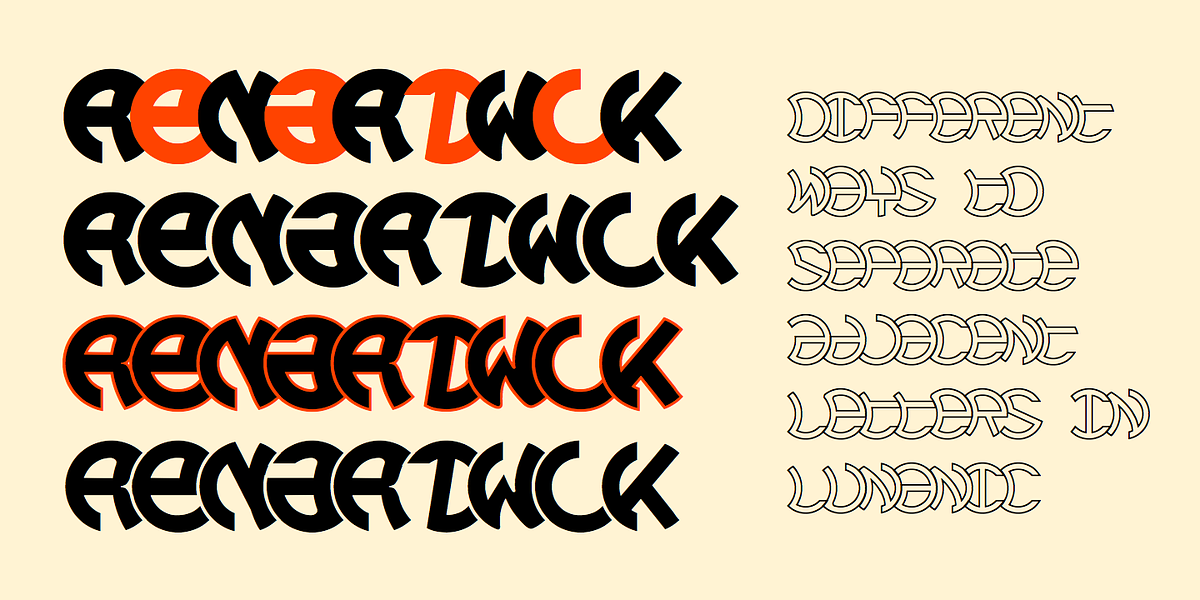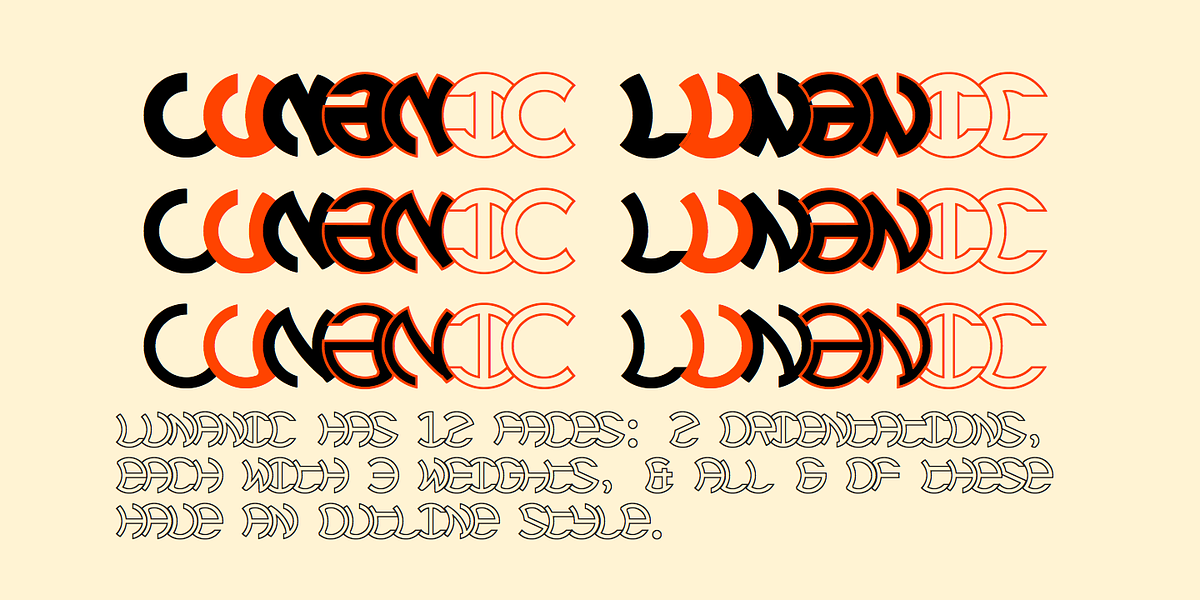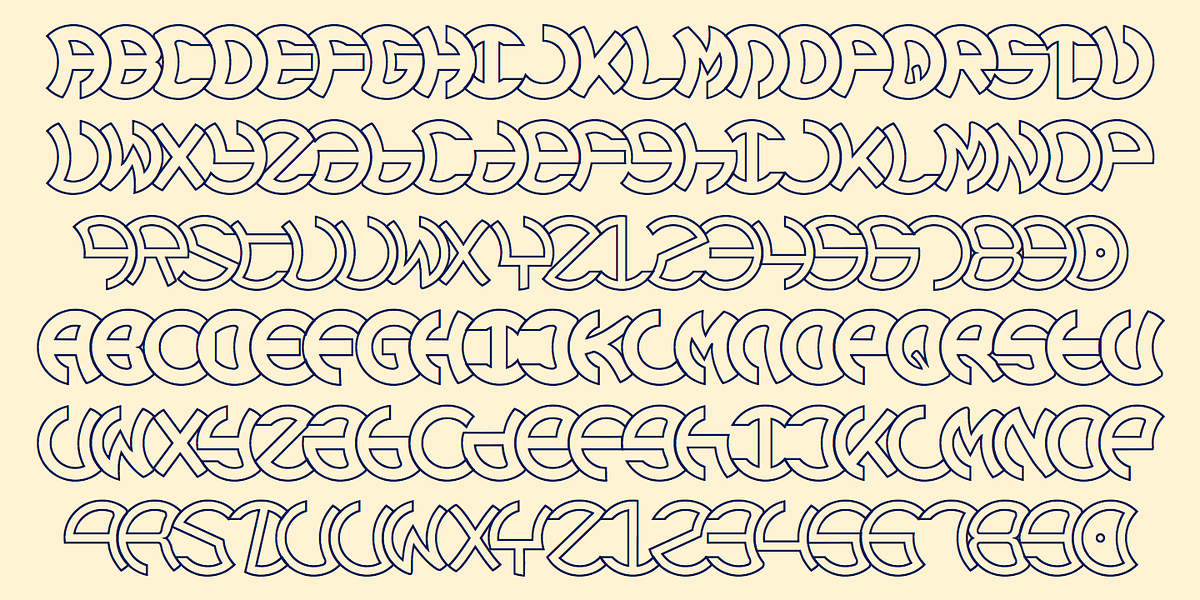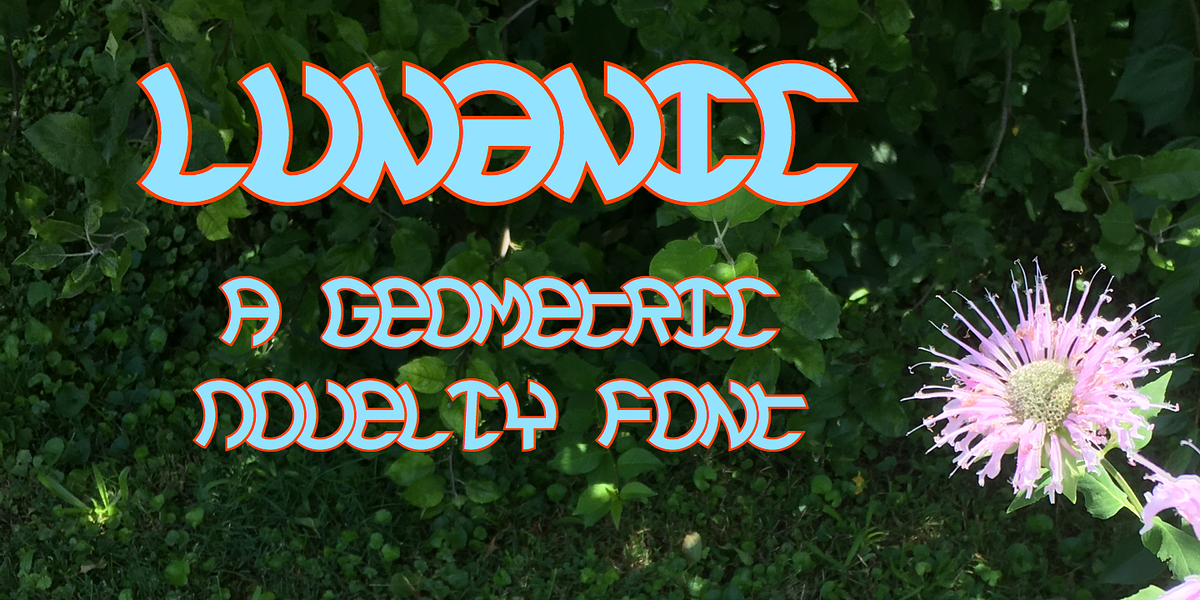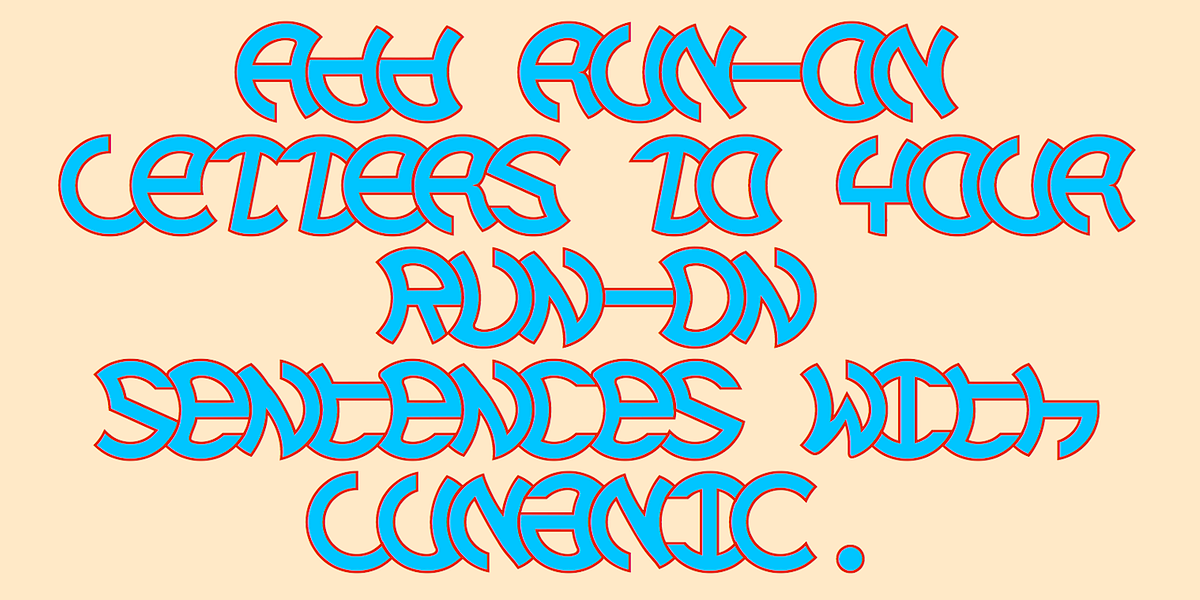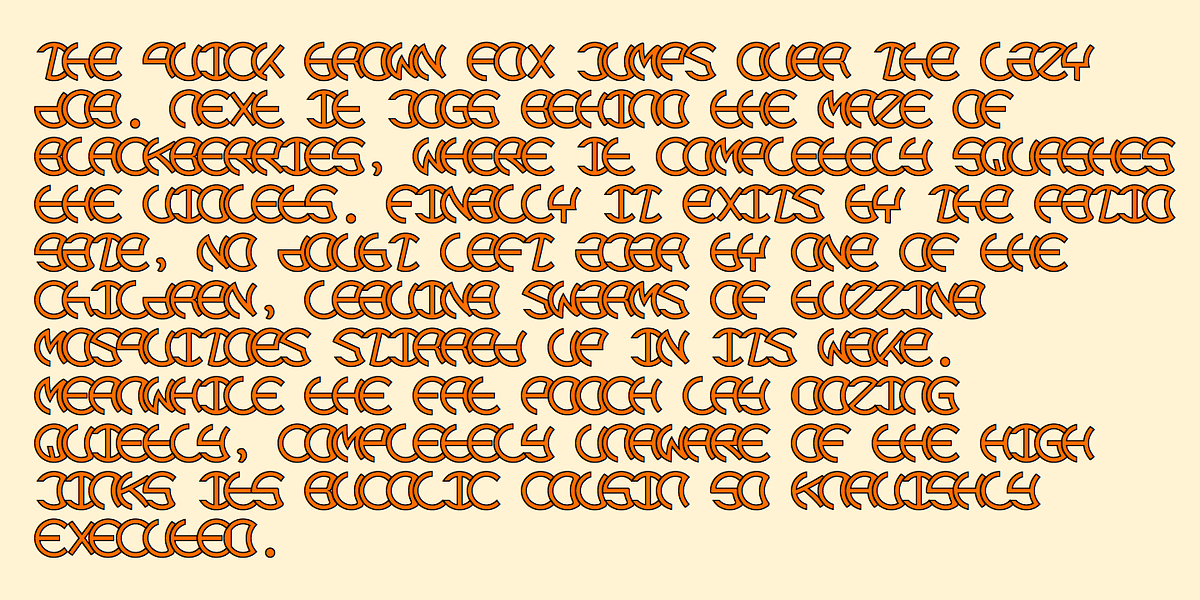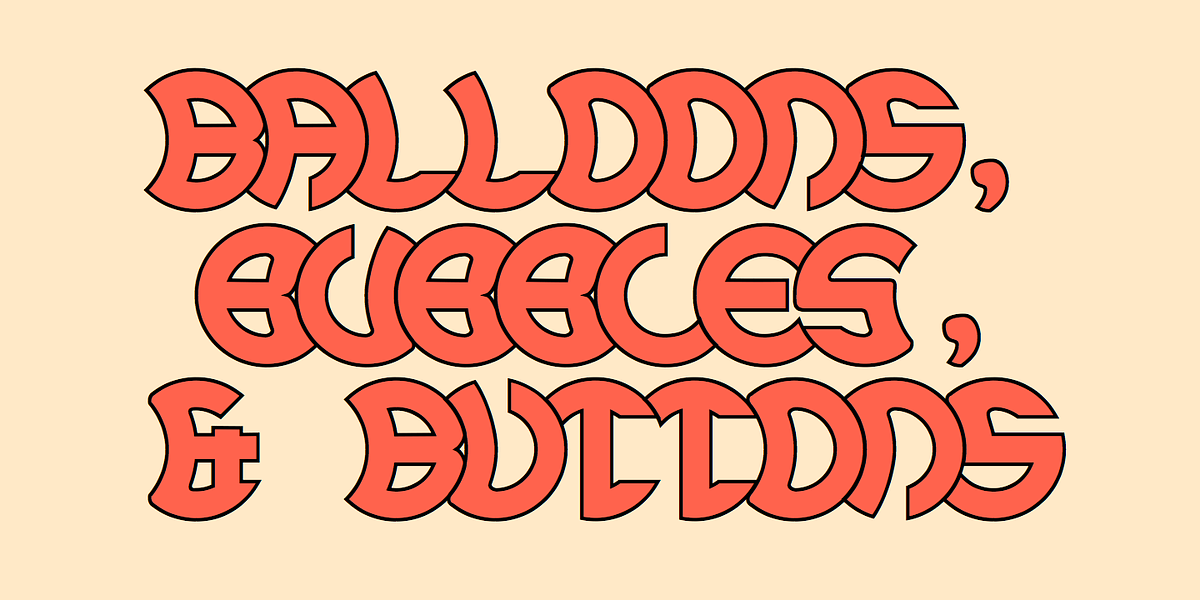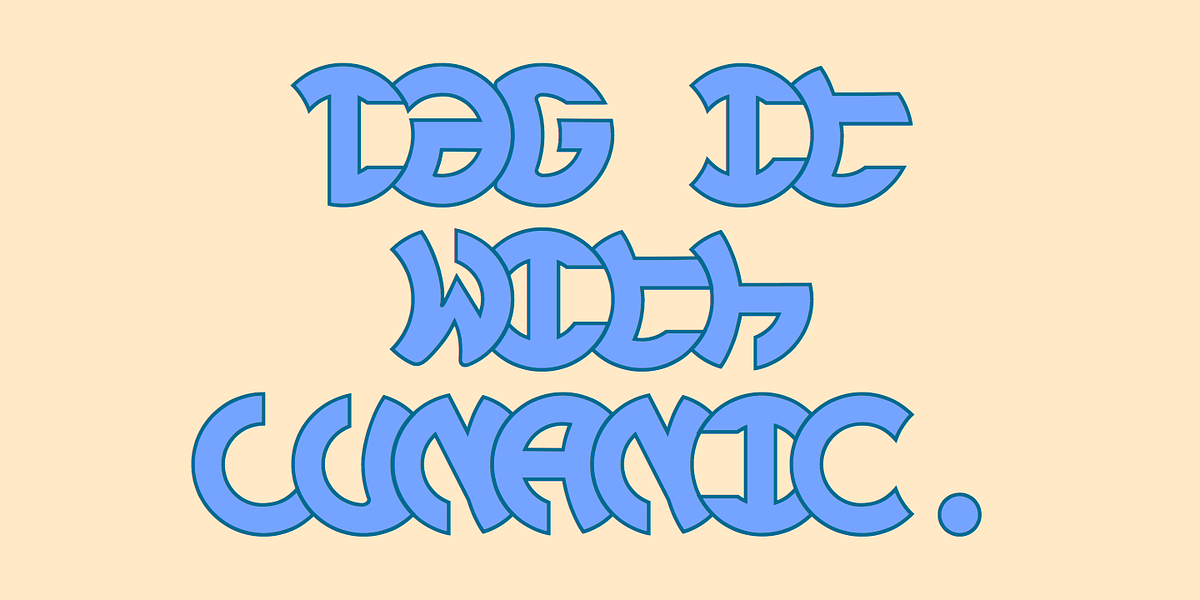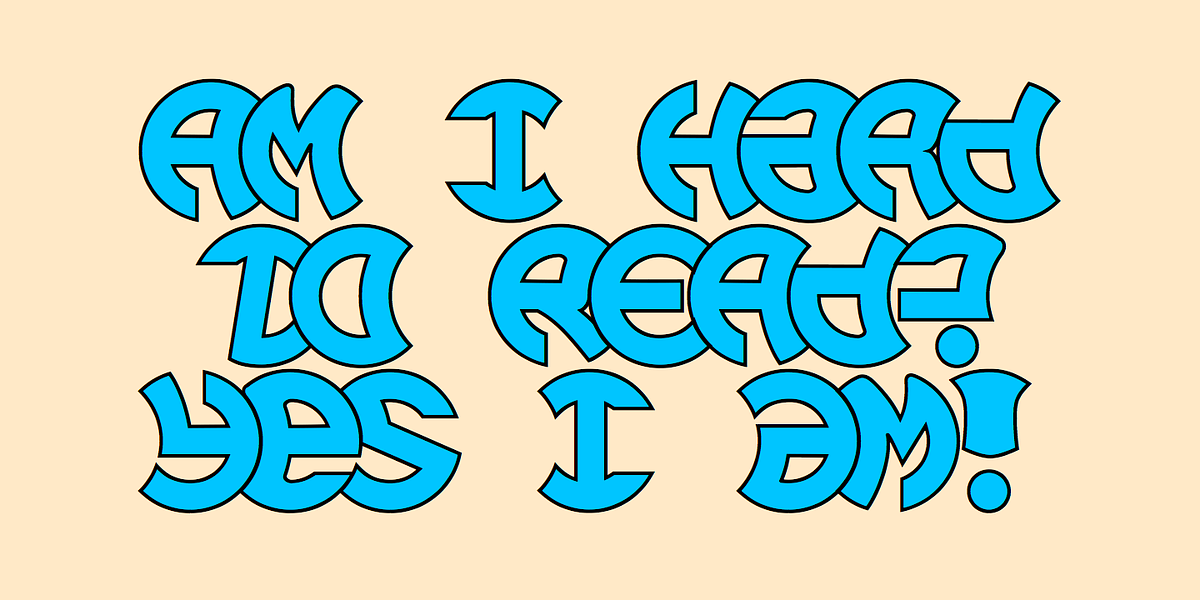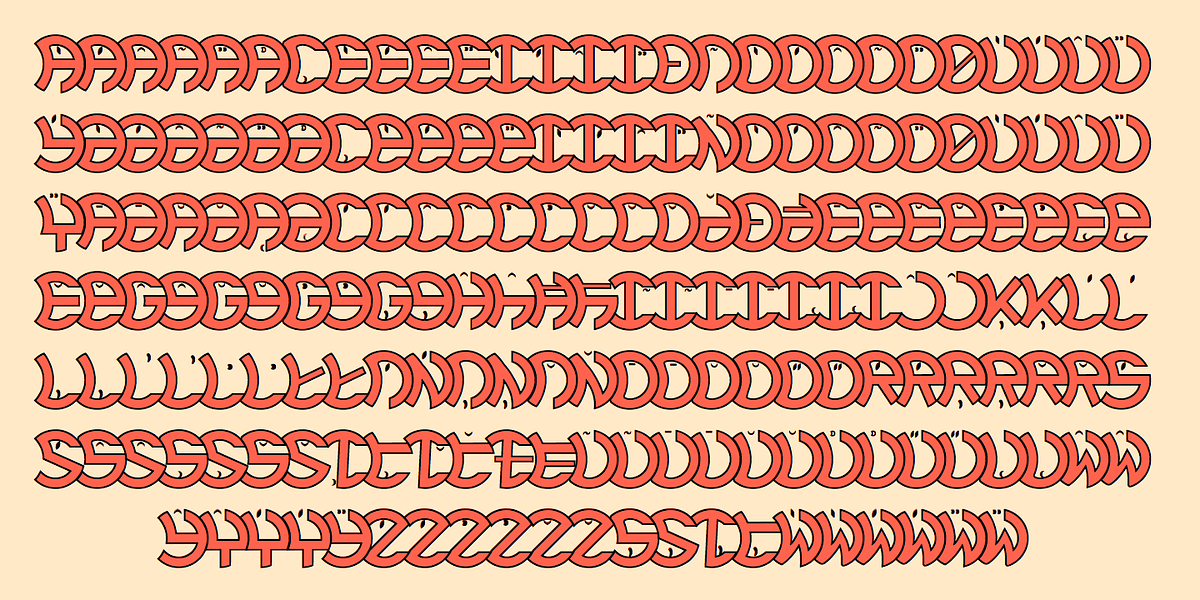
Lunanic
Lunanic is a unique geometric typeface family characterized by its distinctive lunar eclipse-inspired design. Each letter is formed from a circle with a notch removed, creating a visually intriguing shape. The font comes in two orientations (notch on the left or right) and three weights for each orientation. Additionally, there are outline styles that can be layered over the filled letterforms to enhance readability. Lunanic's monospaced nature results in tightly spaced letters, making it necessary to adjust spacing or utilize color variations for optimal legibility. The font lacks a true lowercase but offers alternate characters that can be mixed and matched with uppercase letters.